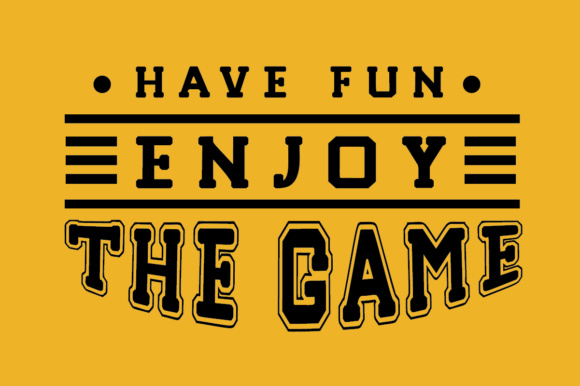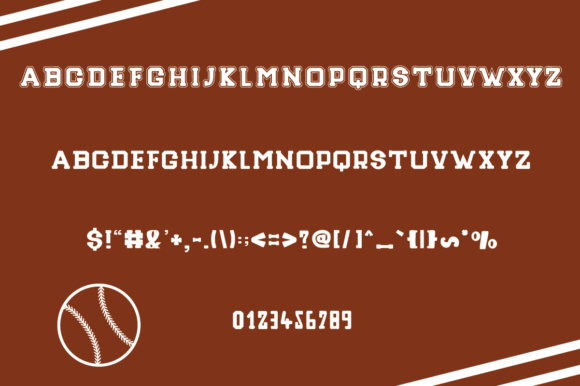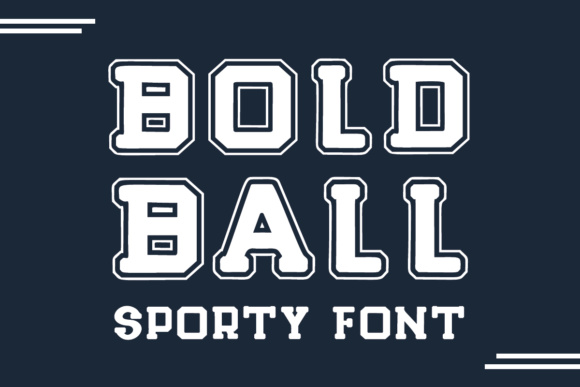
The Bold Ball Font: A Sportive College Style Font That’s a Slam Dunk for Designers
I still remember the design project that led me to discover the Bold Ball font. I was working on a brochure for a sports-themed event, and I needed a font that would capture the energetic and playful vibe of the brand. After hours of scrolling through font libraries, I stumbled upon Bold Ball, and it was love at first sight! The uppercase letters with their white outline and the regular lowercase letters seemed like the perfect combination of sporty and stylish.
An Honest Review of Bold Ball Font
What I Love About Bold Ball Font
- ✨ Unique and eye-catching design with white outline on uppercase letters
- ✅ Perfect for sports-themed designs, college-style projects, and creative hobbyist crafts
- 🎉 Highly legible, even at smaller font sizes
- 💻 Works well for both digital and print designs
While Bold Ball is an amazing font, there are a few things to keep in mind:
- 🤔 Limited use of special characters and punctuation
- ⚠️ May not be suitable for formal or professional designs
The Designer Inspiration Behind Bold Ball
While I couldn’t find any information on the exact designer behind Bold Ball, it’s clear that the font was created with a passion for sports and design. The unique white outline on uppercase letters and regular lowercase letters gives the font a distinctive look that’s perfect for college-style designs and sports-themed projects.
Q: What type of designs is Bold Ball best suited for?
A: Bold Ball is perfect for sports-themed designs, college-style projects, and creative hobbyist crafts.